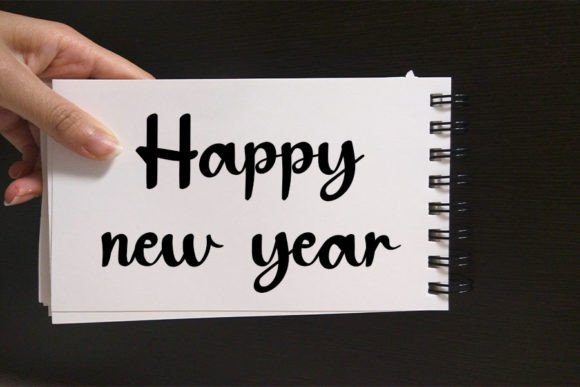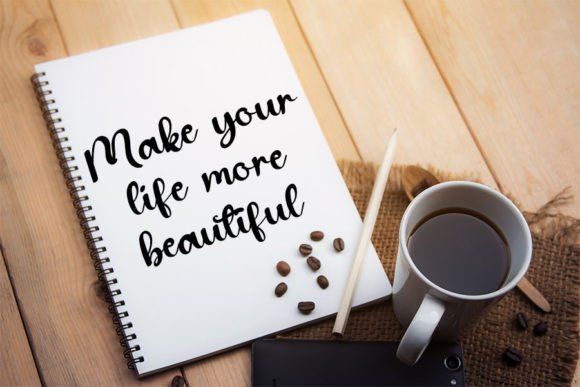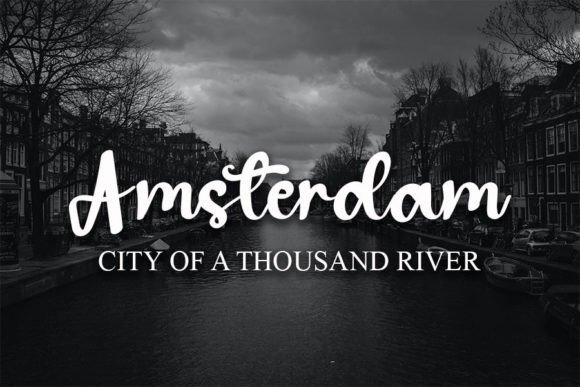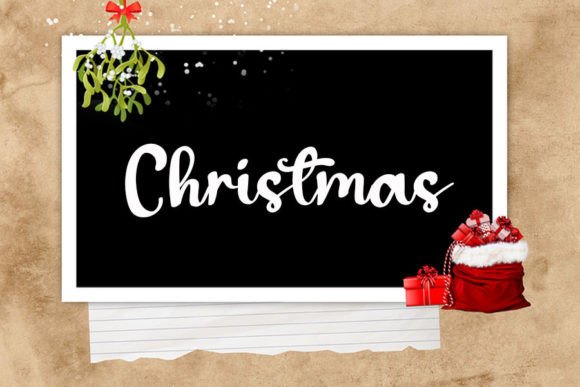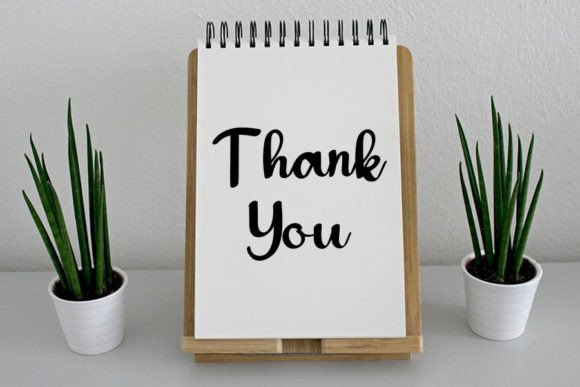
Dairy Milk Font: A Magical Handwritten Font for Your Creative Projects
Are you a designer, crafter, or DIY enthusiast looking for a unique and elegant font to elevate your creative projects? Look no further than the Dairy Milk Font, a magical handwritten font that combines clean lines with a touch of quirkiness. In this article, we’ll explore the features and benefits of the Dairy Milk Font, and how it can be the perfect fit for your logos, branding, social media, and crafty DIY projects.
What is Dairy Milk Font?
Dairy Milk Font is a carefully crafted handwritten font that exudes elegance and sophistication. With its clean lines and subtle quirks, this font is perfect for creating visually appealing designs that stand out from the crowd. Whether you’re designing a logo, creating social media graphics, or working on a crafty DIY project, the Dairy Milk Font is sure to impress.
Key Features of Dairy Milk Font
- Handwritten elegance: The Dairy Milk Font is a beautifully crafted handwritten font that adds a touch of elegance to any design.
- Clean and quirky: With its clean lines and subtle quirks, this font is perfect for creating designs that are both sophisticated and playful.
- Versatile: The Dairy Milk Font is suitable for a wide range of creative projects, from logos and branding to social media graphics and crafty DIY projects.
- Easy to read: Despite its elegant and handwritten nature, the Dairy Milk Font is easy to read, making it perfect for designs that require a clear and concise message.
Benefits of Using Dairy Milk Font
So why choose the Dairy Milk Font for your creative projects? Here are just a few benefits of using this magical handwritten font:
- Stand out from the crowd: With its unique and elegant design, the Dairy Milk Font is sure to make your designs stand out from the crowd.
- Add a touch of personality: The Dairy Milk Font adds a touch of personality to any design, making it perfect for brands and designers who want to express their individuality.
- Perfect for DIY projects: The Dairy Milk Font is a great choice for crafty DIY projects, such as handmade cards, invitations, and scrapbooking.
- Pair with other fonts: The Dairy Milk Font pairs well with other fonts, such as sans-serif fonts or script fonts. Experiment with different font combinations to create unique and visually appealing designs.
Need some inspiration for using the Dairy Milk Font? Here are a few ideas to get you started:
- Logo design: Use the Dairy Milk Font to create a unique and elegant logo for your brand or business.
- Social media graphics: Create visually appealing social media graphics using the Dairy Milk Font, such as Facebook posts, Instagram stories, and Twitter headers.
- DIY projects: Use the Dairy Milk Font to add a touch of personality to your DIY projects, such as handmade cards, invitations, and scrapbooking.
- Branding and packaging: Use the Dairy Milk Font to create cohesive branding and packaging for your product or service.
In conclusion, the Dairy Milk Font is a magical handwritten font that is perfect for designers, crafters, and DIY enthusiasts. With its clean lines, subtle quirks, and elegant design, this font is sure to elevate your creative projects and make them stand out from the crowd. Whether you’re designing a logo, creating social media graphics, or working on a crafty DIY project, the Dairy Milk Font is a great choice. So why not give it a try and see the difference it can make?